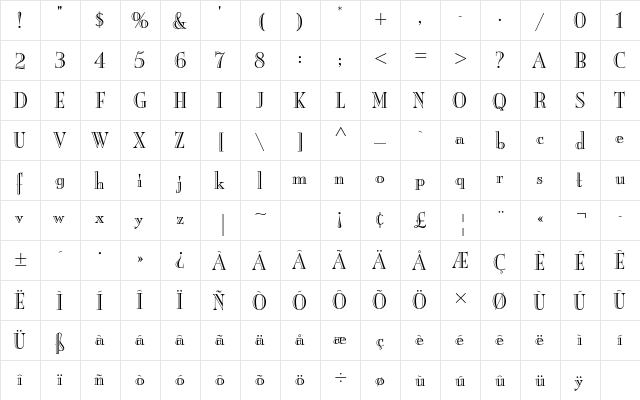
Burlington Std Regular
| Designer | Alan Meeks |
Design Context for Burlington Std Typeface
Burlington Std is a composed and adaptable typeface that performs quietly and consistently across a wide range of design contexts.